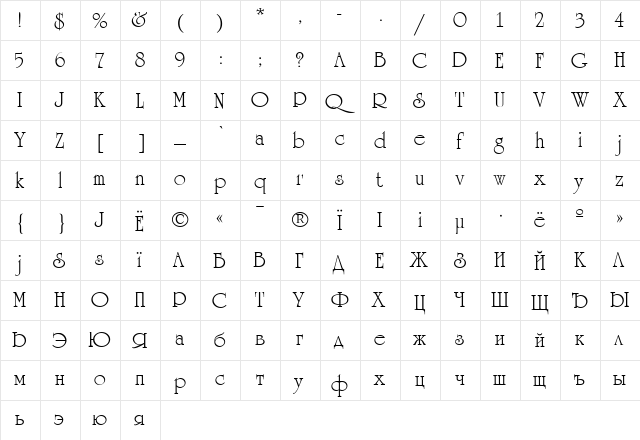
University-Roman Medium
Design Context for University-Roman Typeface
University-Roman offers clean, dependable letterforms without strong stylistic allegiance, making it a practical choice for designers who need flexibility.
Pro Tip: Use University-Roman in both headline and body roles to test its range before committing to a single application.